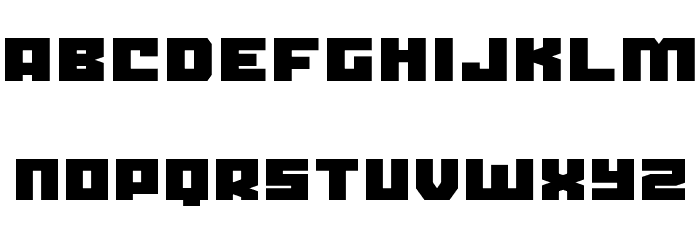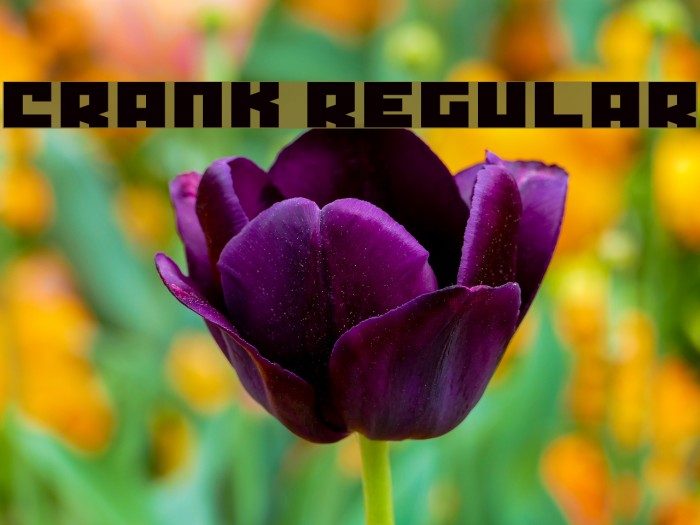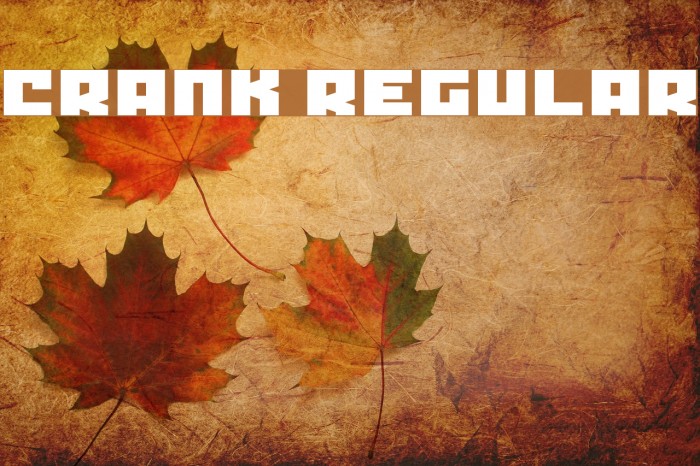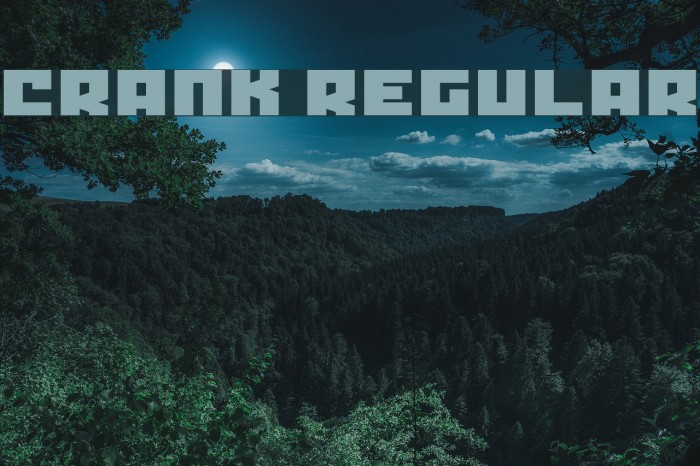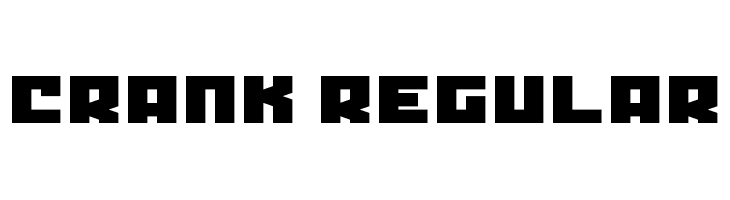
Crank Regular Font
This font features a bold, geometric design with a strong industrial feel. The characters are blocky and angular, giving it a robust and mechanical appearance. The uppercase and lowercase letters maintain a consistent width, contributing to a uniform look. The numbers and special characters follow the same design principles, ensuring cohesion across all glyphs. The font's heavy weight and solid structure make it ideal for impactful designs where readability and presence are key.
A bold, geometric font with an industrial and mechanical style.
- Proposed Projects: Ideal for branding, posters, and signage where a strong, industrial look is desired.